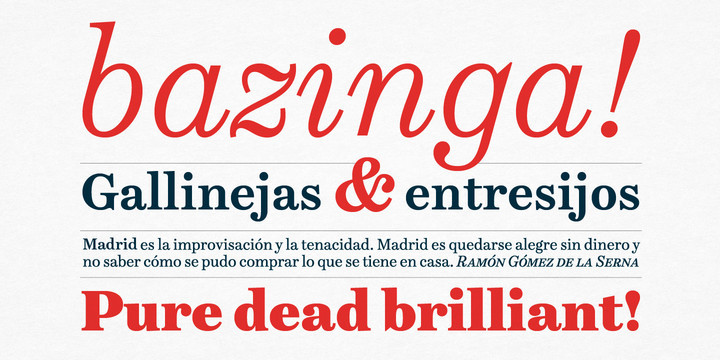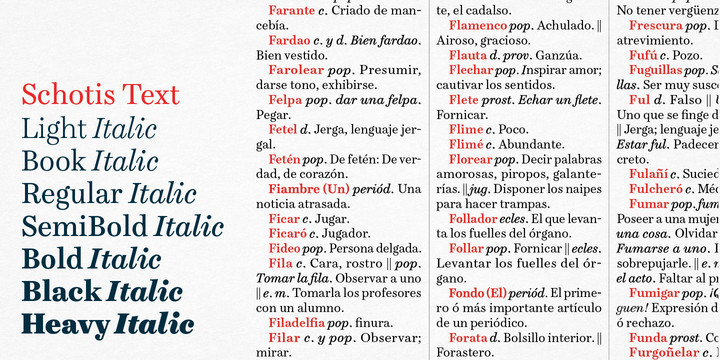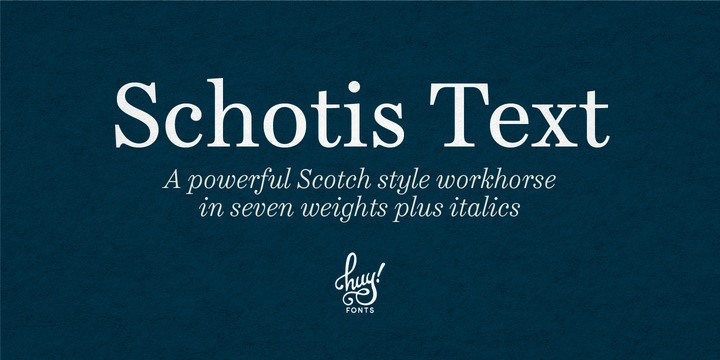
Schotis Text Font
Schotis Text is a workhorse typeface designed for perfect reading on running texts. Its design is based in Scotch Roman 19th-century style but designed from scratch, with a more contemporary and not nostalgic look.
It has seven weights plus matching italics, with 1100 glyphs per font, with a very extended character set for Latin based languages as well as Vietnamese, and shows all its potential with OpenType-savvy applications. Every font includes small caps, ligatures, old-style, lining, proportional and tabular figures, superscript, subscript, numerators, denominators, and fractions.
The Scotch Romans were one of the most used letters during the 19th and early 20th century, but they don’t have their own place in the main typographical classifications. They appeared at the beginning of the 19th century with Pica No. 2 in the catalog of William Miller (1813) and assumed the British route towards high contrast and vertical axis modern Romans. In fact, they were called just Modern. In opposition to the continental route of Fournier, Didot, and Bodoni, the English way opted for a wider, more legible letter also resistant to bad printing conditions.
The name Schotis comes from the misspelling of Scottish that gave the name to a popular dance in Madrid in the 19th-century. It first was called Schotis and today is knows as Chotis.